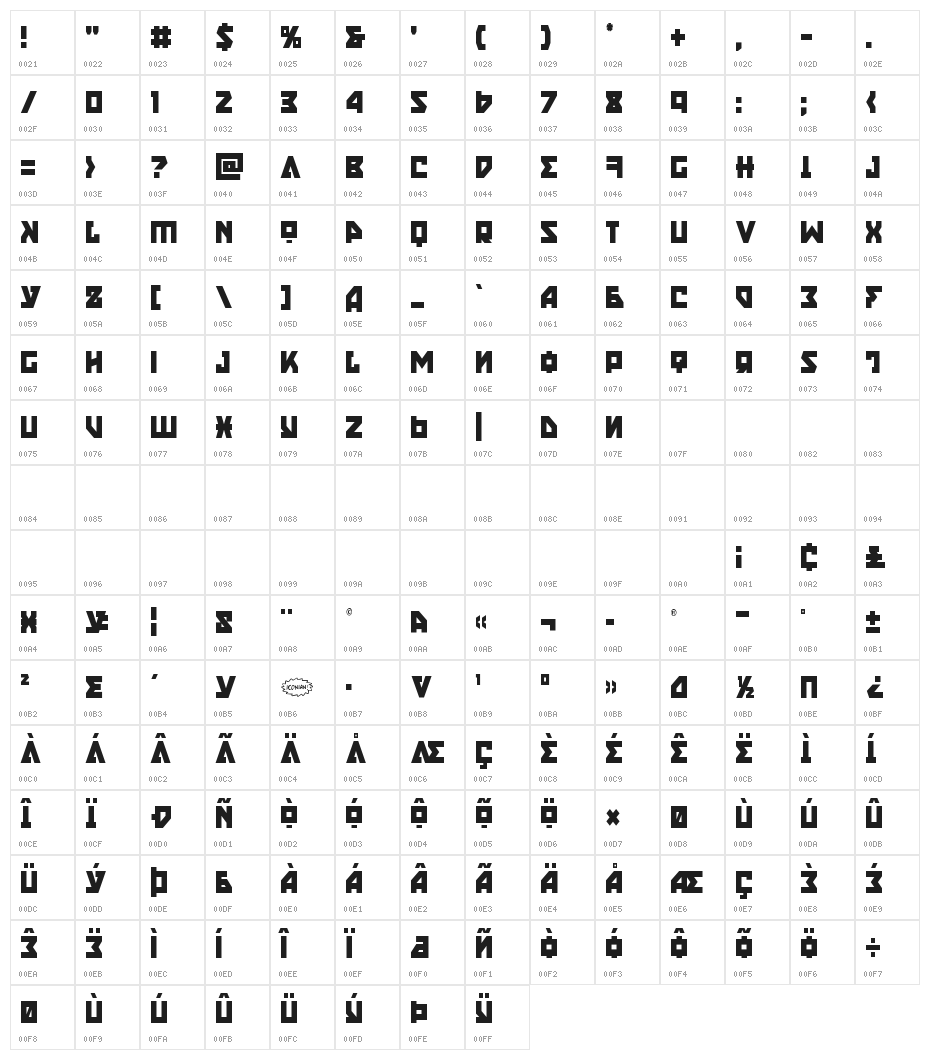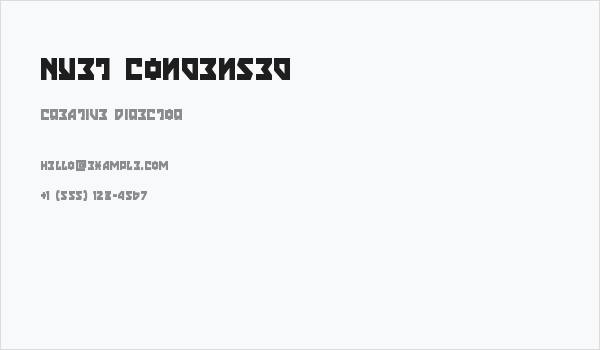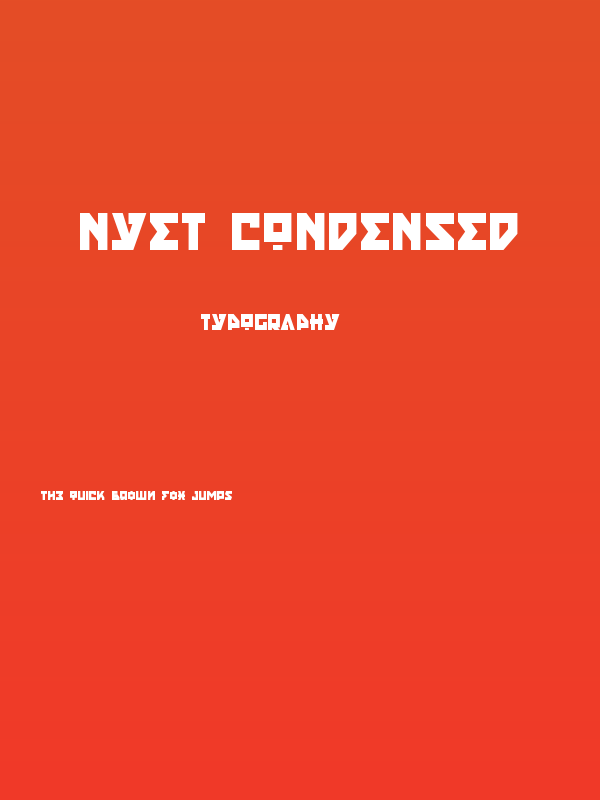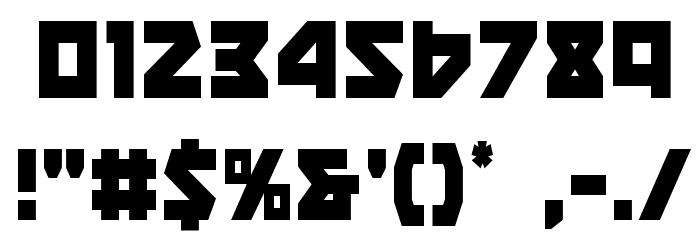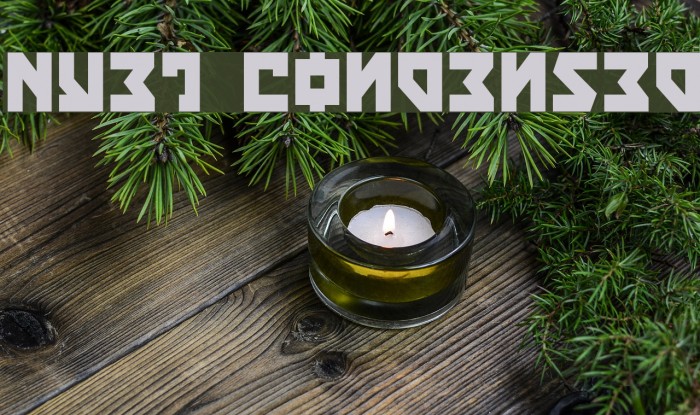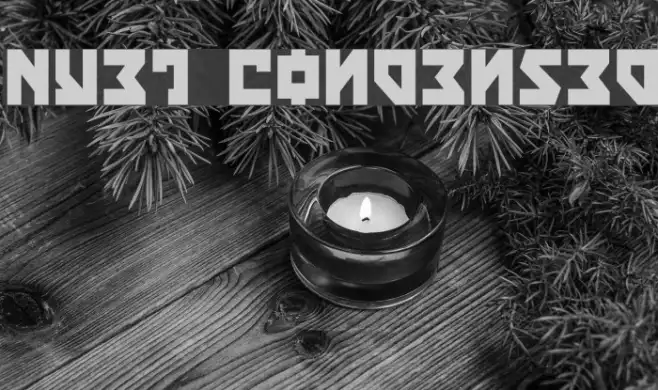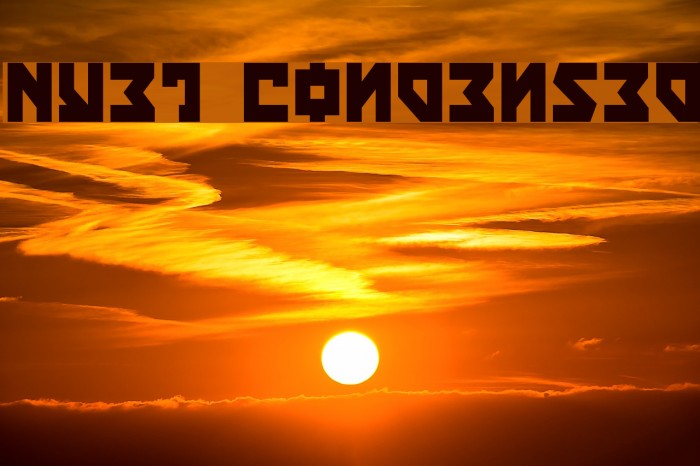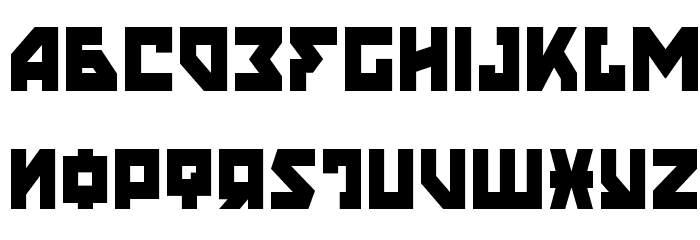
Nyet Condensed Font
Nyet Condensed Description
This font features a bold, geometric design with sharp angles and a condensed structure. The characters are blocky and robust, creating a strong visual impact. The uppercase and lowercase letters maintain a consistent style, with minimal variation in stroke width, contributing to a uniform appearance. The numerals and special characters follow the same angular theme, enhancing the overall cohesiveness. This font's distinctive style is reminiscent of industrial or futuristic aesthetics, making it suitable for projects that require a bold and assertive typeface.
| Proposed Projects | Ideal for posters, logos, branding, and any design requiring a bold, industrial look. |